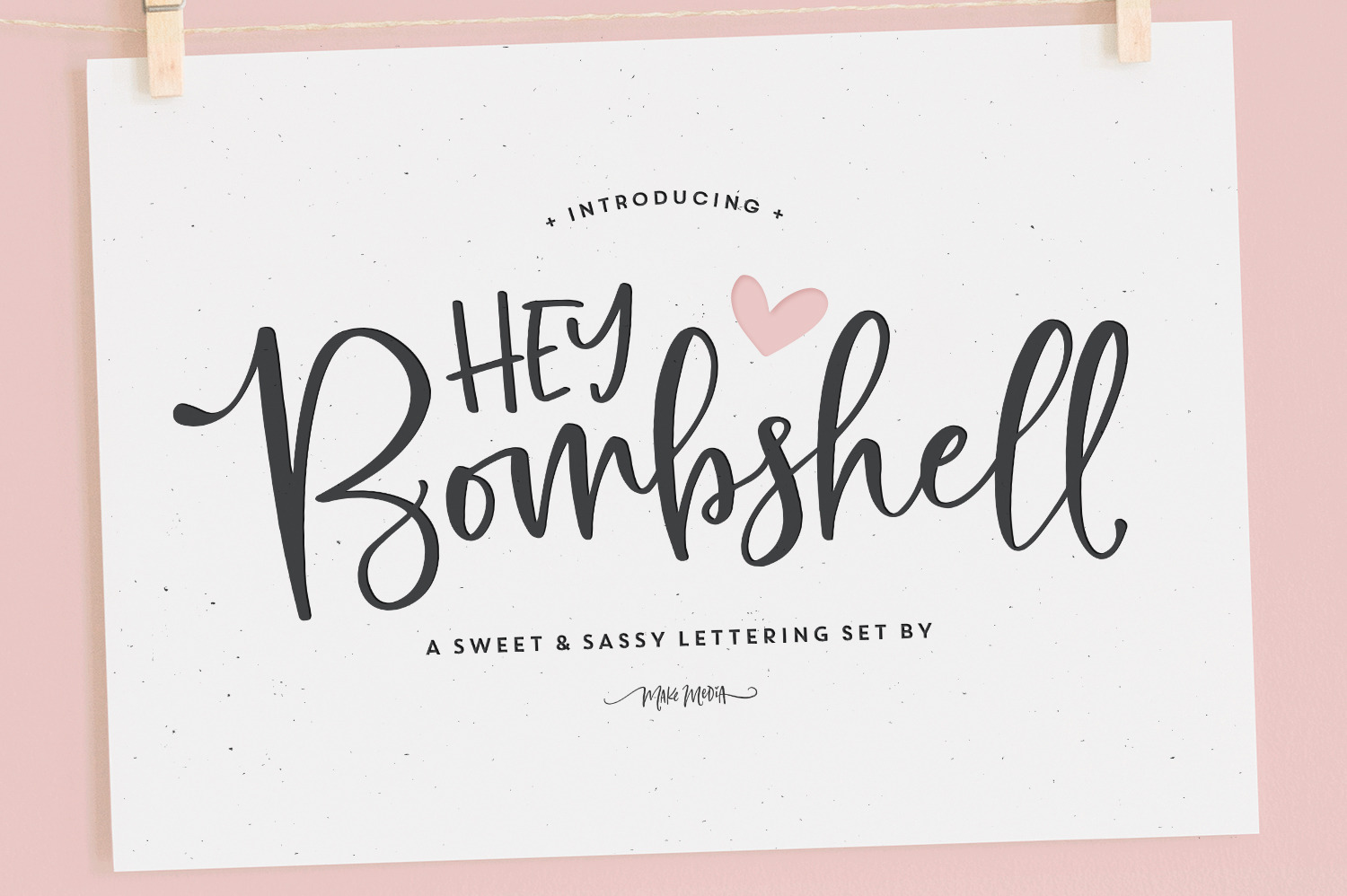
Are you looking for a fun, bouncy lettering set for envelopes, logos, typography, branding and greeting cards?! Well look no further! Created with stationary in mind, Hey Bombshell, a sweet, yet sassy font family, LOADED with extras to make your work stand out! 🙌🏼💕😋